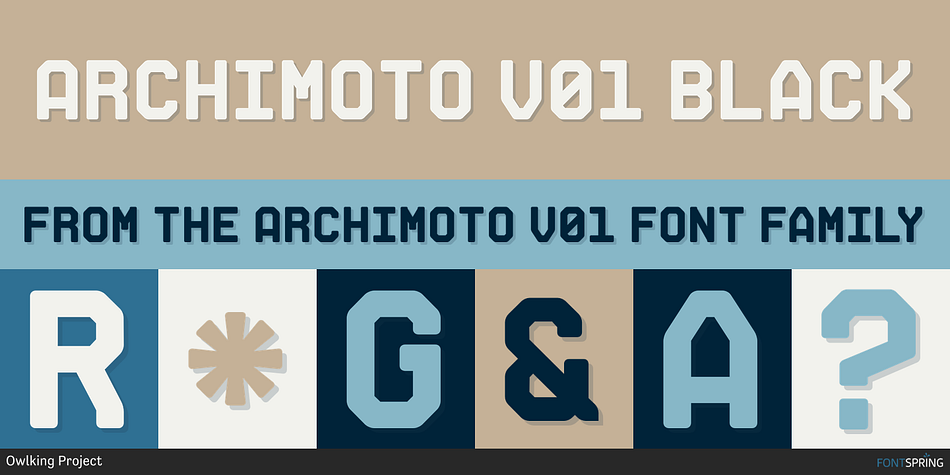
Archimoto V01 Black
Archimoto V01 is a display sans and pixel font family. This typeface has twenty styles and was published by Owlking Project.
Responded to the design of working drawing techniques in the world of architecture and letters on old stuff photography lens bodies, archimoto is designed with a more modern form, a little touch of detail in the corner area is so smooth that it aims to provide comfort to the eyes, by bringing 20 sizes including italic archimoto can be used more freely and can be adjusted more extensive exploration of its use. archimoto can be used as headlines and body text, the level of readability that looks comfortable makes the arrangement of letters more beautiful.
Foundry Owlking Project
Styles Display Sans, Pixel